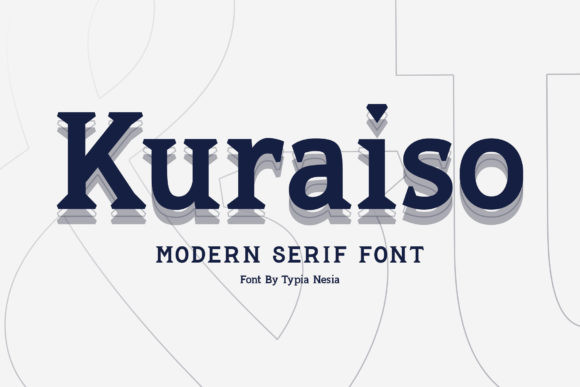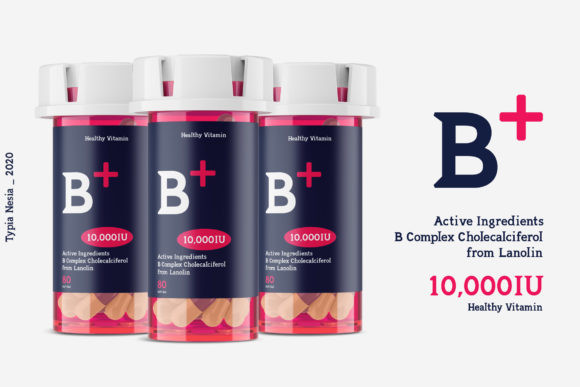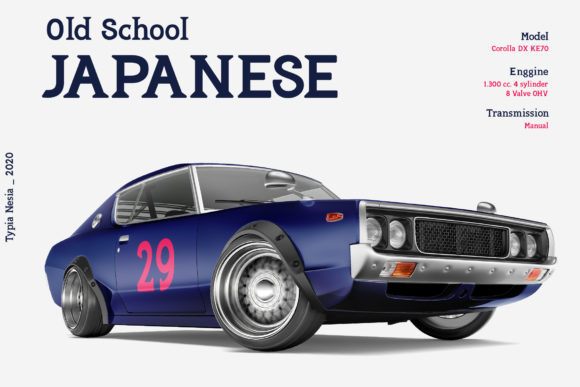
Kuraiso Font
Kuraiso is a distinct, elegant serif font that blends traditional influences into a contemporary aesthetic. Its well balanced Latin details contain distinctive contrasts. Use Kuraiso to achieve an exquisite, yet subtle look and maximum versatility.